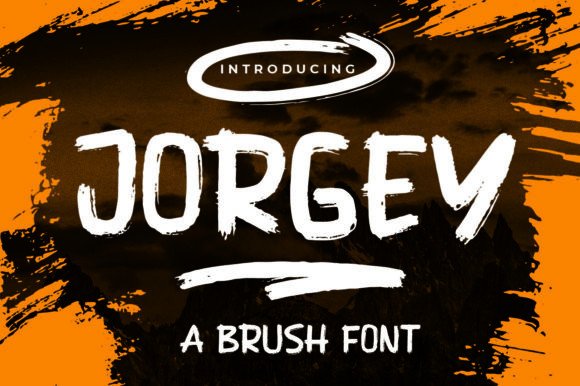
Journey into the world of Jorgey Font, where elegance meets creativity. This exquisite script font family, brought to life by gatype, captivates with its casual brush style, leaving a trail of sophistication and charm on your designs.
With Jorgey Font, your projects transcend the ordinary. Whether you're crafting logos that speak volumes, branding that leaves a lasting impression, or posters that ignite imagination, this font adds an undeniable touch of allure. Create heartfelt quotes that resonate, design wedding invitations that capture the essence of love, or craft stationery art that reflects your unique style.
Dive into the realm of social media and watch Jorgey Font transform your posts into eye-catching masterpieces. Its captivating nature draws attention, making your content stand out in the digital landscape. Design greeting cards that ooze warmth and charm, spreading joy and cheer with every stroke.
Elevate your designs with Jorgey Font, a font family that knows no bounds. Its versatility extends to branding projects, greeting cards, quotes, posters, logos, and invitations. Let your imagination soar as you explore endless possibilities, leaving a lasting impression on all who encounter your creations.
Jorgey Font is not just a font; it's an extension of your creativity, allowing you to express your unique vision with confidence and flair. Embrace the beauty of this script font and embark on a journey of design excellence.